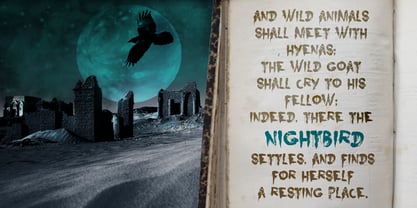
Nightbird
by Hanoded
About Nightbird Font Family
A very detailed and scary brush font, made with ink, paint and stiff bristle brushes.
About Hanoded
Hanoded is a type foundry based in The Netherlands and run by David Kerkhoff. After finishing his journalism studies, David traveled extensively and ended up in Israel where he stayed for some years. David had a lot of jobs – zookeeper, goldsmith, artist and cook (to name a few), but settled on working as a tour guide and photographer. David specializes in hand printed typefaces and uses brushes, pens, ink and paint to create his – sometimes scary looking – fonts. He lives in a wee hamlet near the Rhine river, with his wife, three kids, a handful of extremely spoiled chickens and two guinea pigs called Cookie and Chippie.The Premium foundry page can be viewed https://www.myfonts.com/a/font/premium-font-collections/hanoded